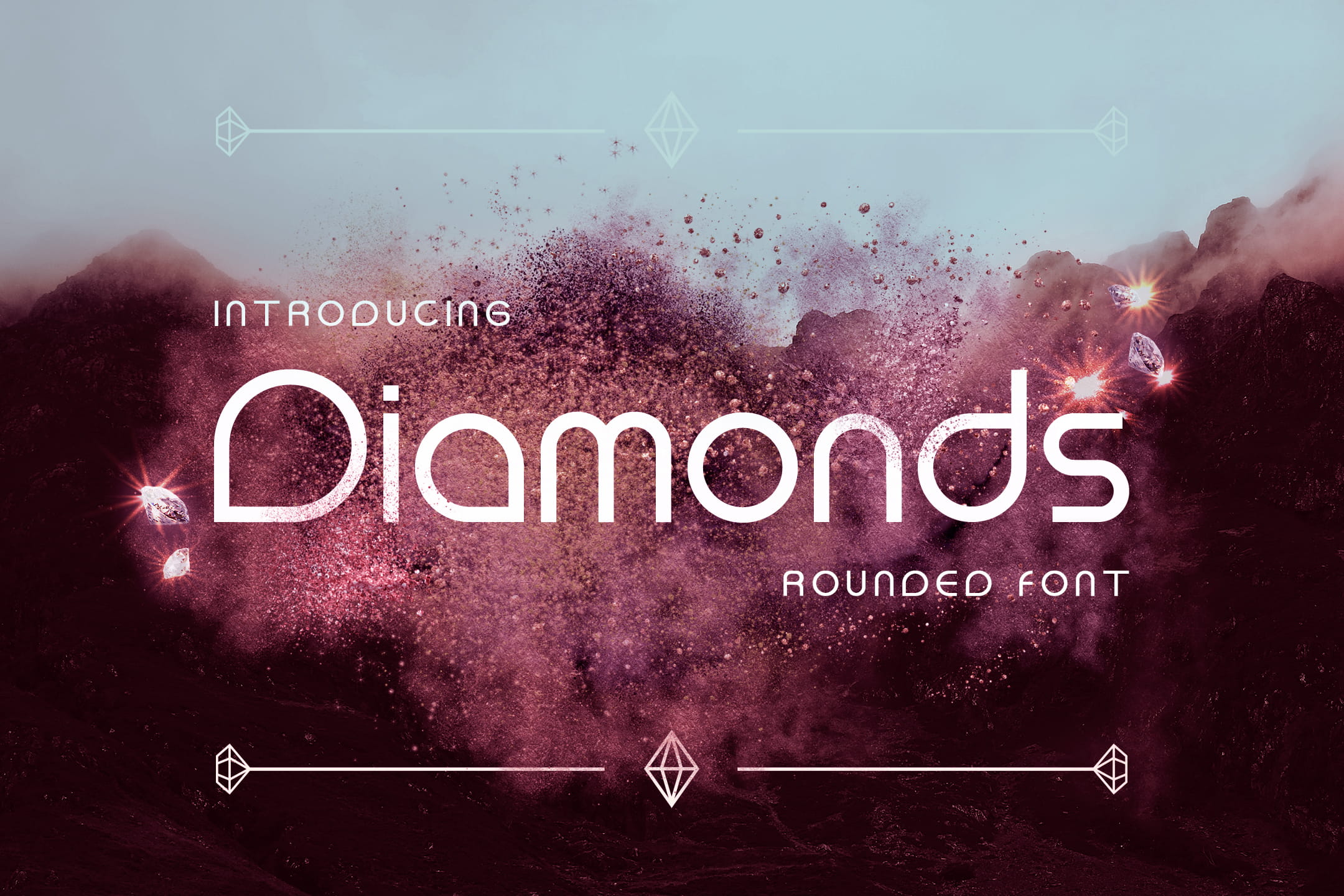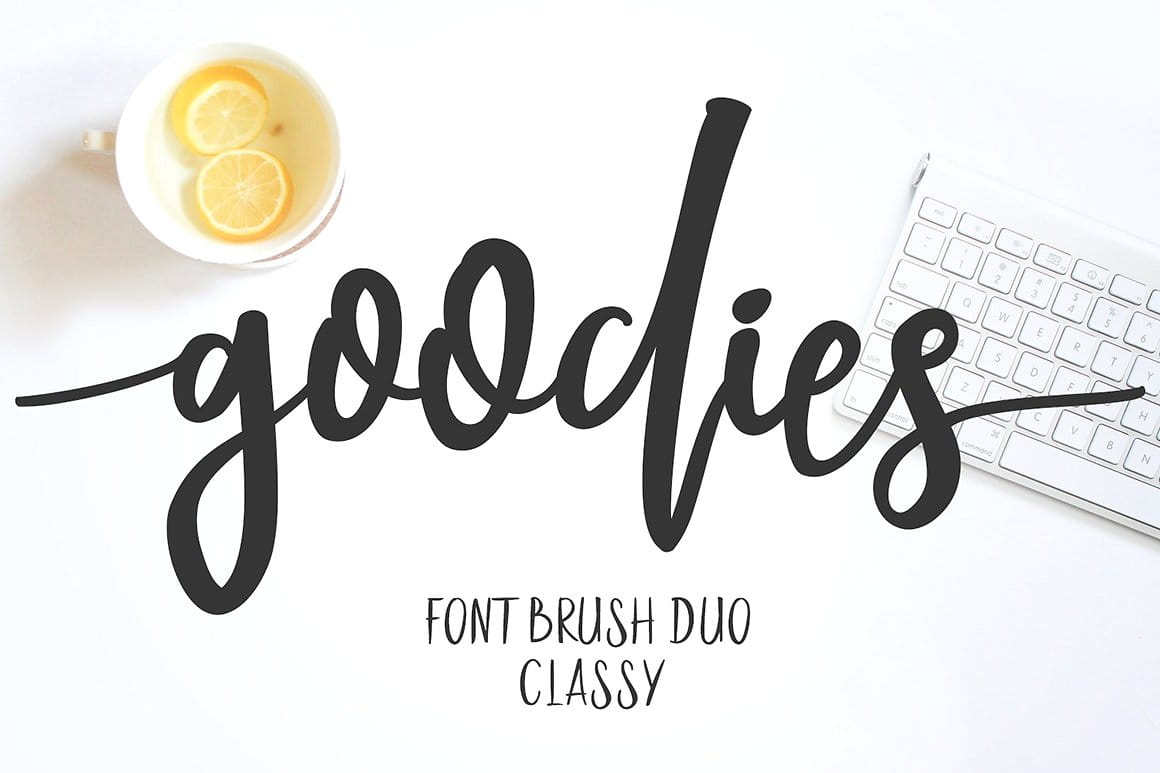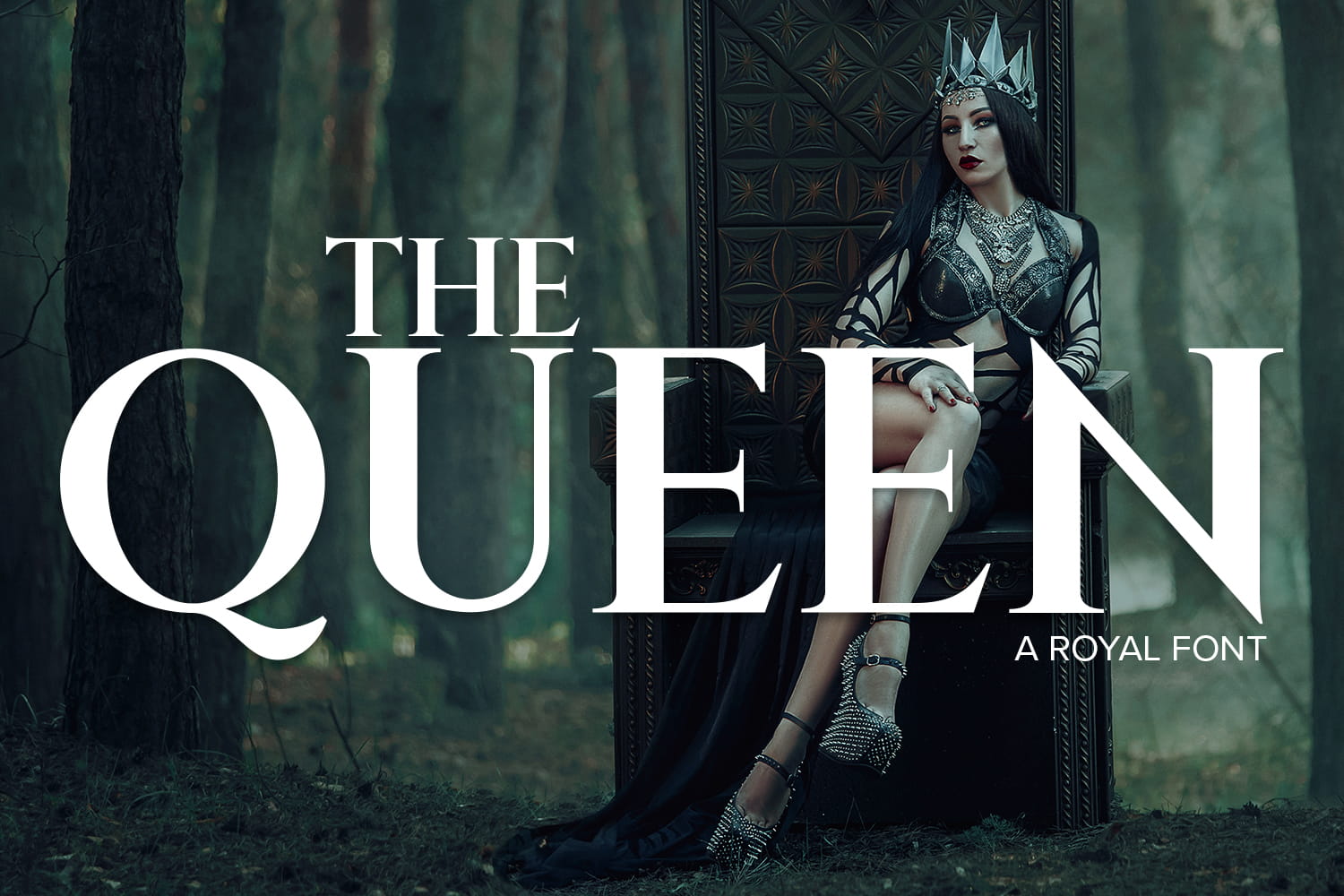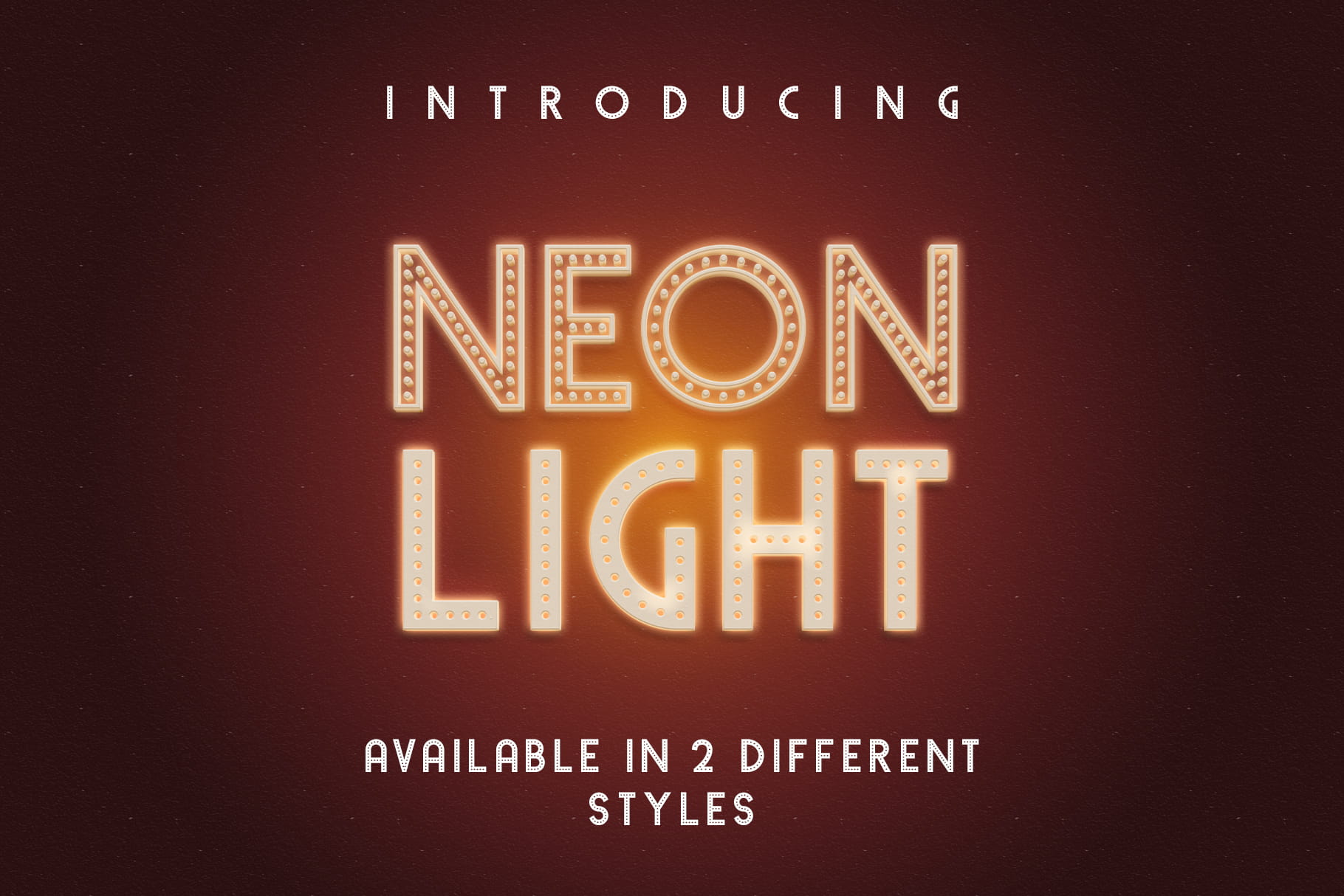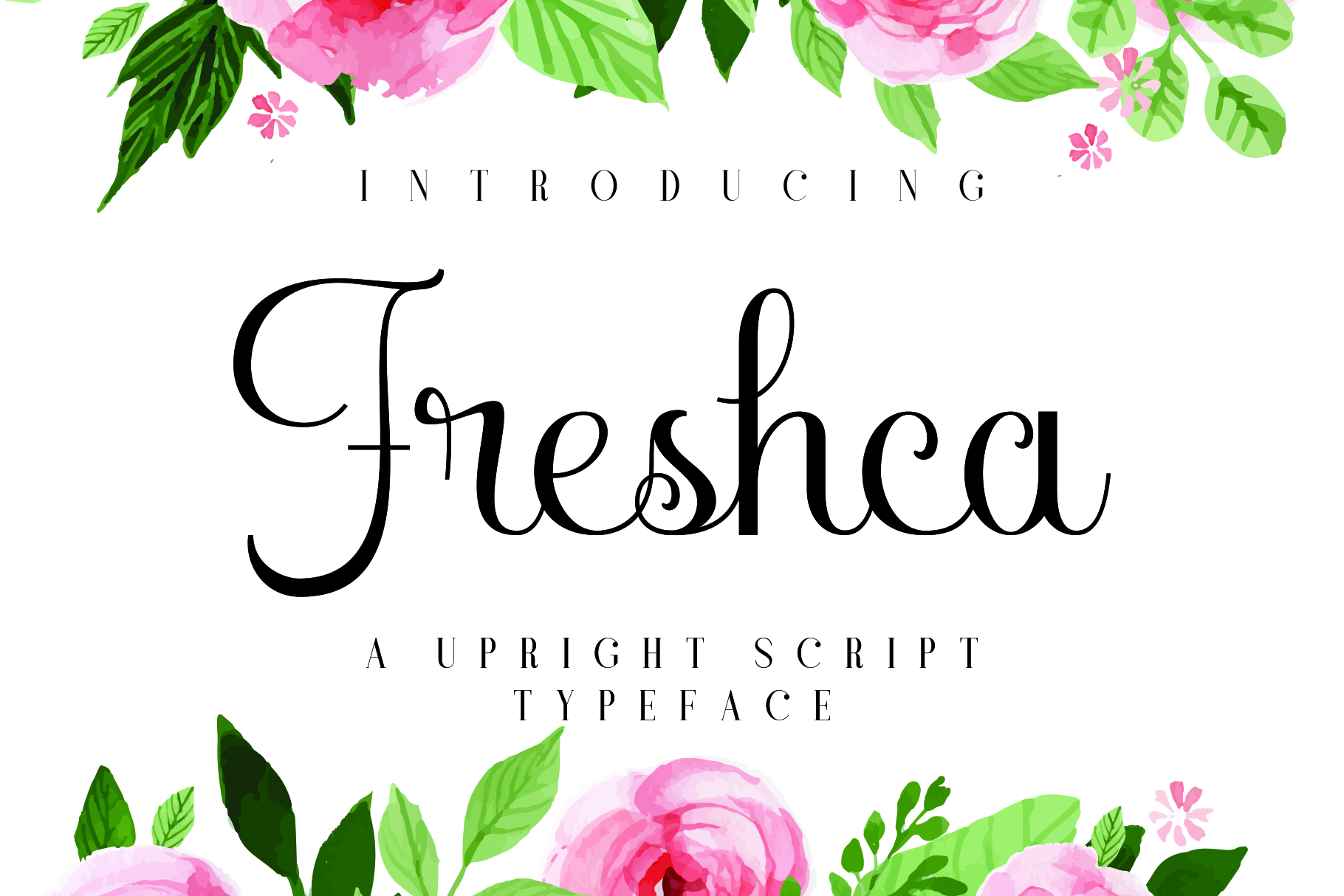
Aventurine Scriptine
Aventurine Scriptine font – a free font new fresh & modern script with a handmade calligraphy style, decorative characters and a dancing baseline! Beautiful on invitations, branding, business cards, quotes, posters, and more! Aventurine Scriptine Font comes with 394 glyphs. The alternative characters were divided into several Open Type features such as Swash, Stylistic Sets, Stylistic Alternates and Ligature. This font is PUA Encoded, so that all the alternate characters can easily be accessed by anybody with Font book on Mac or Character Map on Windows.
The Queen
The Queen is free font, a beautiful and authoritative royal font perfect for logo’s, branding, advertisements, magazines and more. Give your designs a royal feel today
Neon Lights
Neon Lights is a free font based on neon lights. Neon Light comes in two styles, one lowercase and one uppercase.
Beach Script
Beach Script a new fresh & modern script with a handmade calligraphy style, decorative characters and a dancing baseline! So beautiful on invitation like greeting cards, branding materials, business cards, quotes, posters, and more!!
Beach Script come with 200 + glyphs. The alternative characters were divided into several Open Type features such as Swash, Stylistic Sets, Stylistic Alternates, Contextual Alternates.
Ciscopic
Ciscopic is a modern handwritten font perfect for lots of different craft and design projects.
Hatterline script.
Introducing, Hatterline script. These two lovely fonts would be perfect to combine in your design. with vintage style. The fonts are great for product logo,wedding card logo, clothing brand logo,Vintage design and much more. This font contain 350+ glyphs with bonus Dodger sans.
Freshca
Freshca is an upright script font.
Goodies
Goodies Font Brush is classy script a beautiful with hand drawn to give a great contrast between thick and thin curves.Goodies is perfect for: Logos, branding, apparel, scrap booking, wedding invitations, quotes, labels & more.
Restuner script font
Restuner script font: Is a hand calligraphy, smooth, modern and clasik, calligraphy wavy, which was created to meet the needs of your next design project. Restuner, Can used for various purposes. such as the title, signature, logo, correspondence, wedding invitations, letterhead, signage, labels, newsletters, posters, badges, etc.
Angelina Script font
Angelina Script font is a new fresh & modern script with a handmade calligraphy style, decorative characters and a dancing baseline! Beautiful on invitations such as greeting cards, branding materials, business cards, quotes, posters, and more!!
Diamonds
Diamonds is a rounded logo style font
Loveya Script
Loveya Script is a beautiful handmade script font, modern calligraphy & fresh typeface. Loveya Script suitable for logo, branding, invitation, greeting card, signature, poster and any design that you create.
Jaiho Script
Jaiho Script is a beautiful handmade script font, modern calligraphy & fresh typeface. Jaiho with 2 different style, Jaiho Script & Jaiho Sans. Jaiho Font suitable for logo, branding, greeting card, signature, poster and any design that you create.
Indah Script
Indah Script is a beautiful handmade script font, modern calligraphy & fresh typeface. Indah Script suitable for logo, branding, invitation, greeting card, signature, poster and any design that you create.
Heilig Display font
Heilig Display font with children and cheerful theme for your fun project. Heilig Display font has 3 different styles, regular, clean and outline. Heilig Display font suitable for logo, branding, greeting card, branding, poster and any design that you create.
Sandy Font
Introducing Sandy Font, a handmade brush font from FontBundles.net, carefully designed and nurtured to work in harmony with design work and beautiful crafts.
Pepper Hands
Introducing “Pepper Hands” a homemade script that represents that classic feel for the art of lettering. This font contains uppercase, lowercase, numbers, symbols and punctuation as standard.
Renegade
Renegade is a rebellious uppercase font which packs a punch! With ligatures and alternatives you can use Renegade in different ways to achieve that all important look and feel in your design project.
One Dance
One Dance is a swirly script font which dances its way off the page! This feminine font is smooth and characteristic in its nature, with its lowercase and uppercase forming a true companionship.
Honey Bee
Honey Bee is a vibrant buzzing typeface which can be used to create swarms of new projects. This sweet and juicy script font includes additional swashes and extras to ensure your design work is always bee-autiful!
Amanda
She swirls across the page with elegance and style, with a light and feather like touch. Amanda is the perfect companion to your wedding invites, greeting cards, plaques, crafts and more.
Calligraphy Fruitella typography free font
INTRODUCE Calligraphy Fruitella typography is a hand calligraphy, modern and clasik, calligraphy bumpy, which was created to meet the needs of the next design project. Fruitella, can be used for the purpose. such as title, signature, logo, correspondence, wedding invitations, letterhead, signage, labels, newsletters, posters, badges, etc . Fruitella features 311 + glyphs and 222 alternative characters. including initial and terminal letters, alternates, ligatures, and multiple language support.